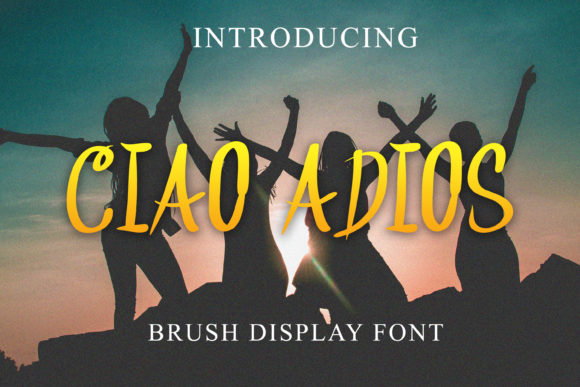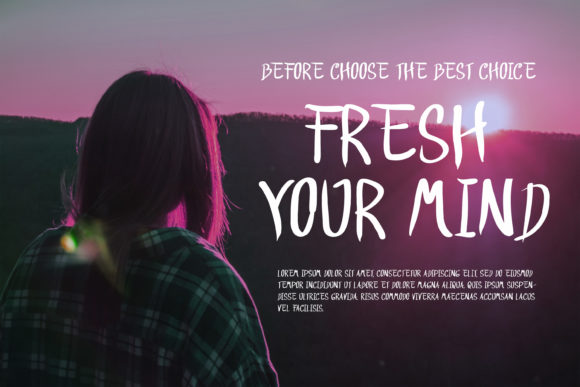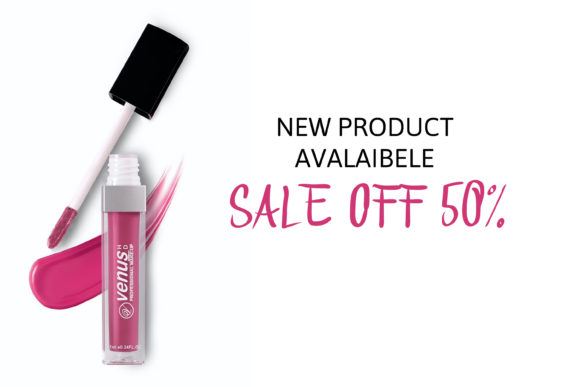
Ciao Adios Font
About Ciao Adios Font
Ciao Adios is a simple and relaxed handwritten font. It can be used for various purposes such as logos, wedding invitations, headings, t-shirts, letterhead, signage, labels, news, posters, badges and so much more.